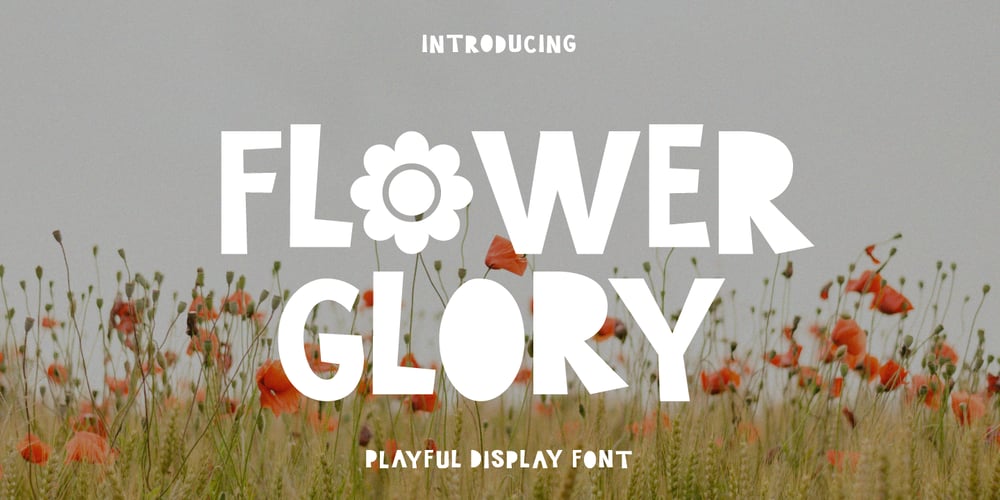
Flower Glory
Flower Glory font
Flower Glory Font Family was designed by Prio Nurokhim Aji and published by Prioritype. Flower Glory contains 1 styles and family package options. Cheerful and cute font with a unique cutout style. Can be adjusted up and down each typing by enabling and disabling caps lock. Perfect for quotes, cover designs, merchandise, posters, creative posts, birthday cards and so on. Features: Uppercase, Lowercase, Numeral, Punctuation & Multilingual.Thanks!